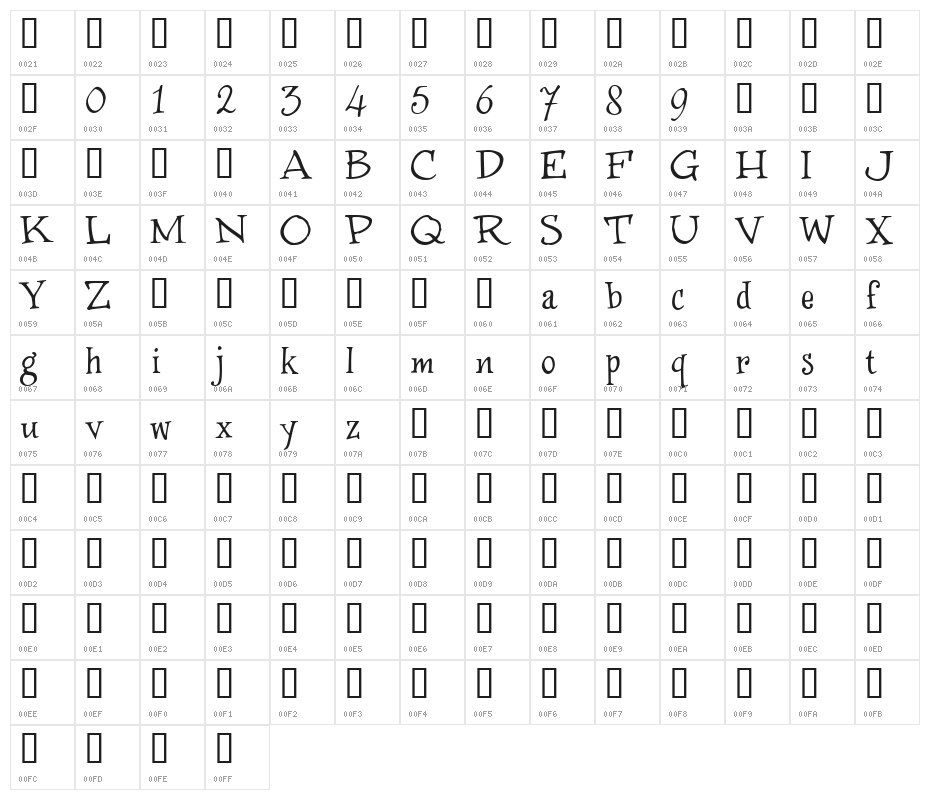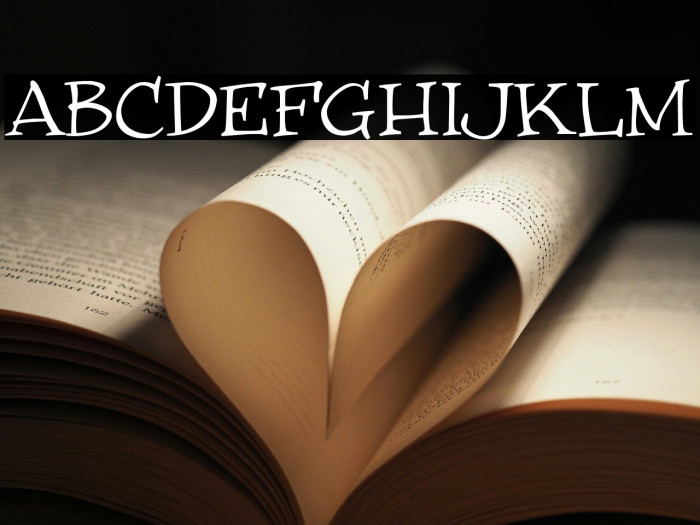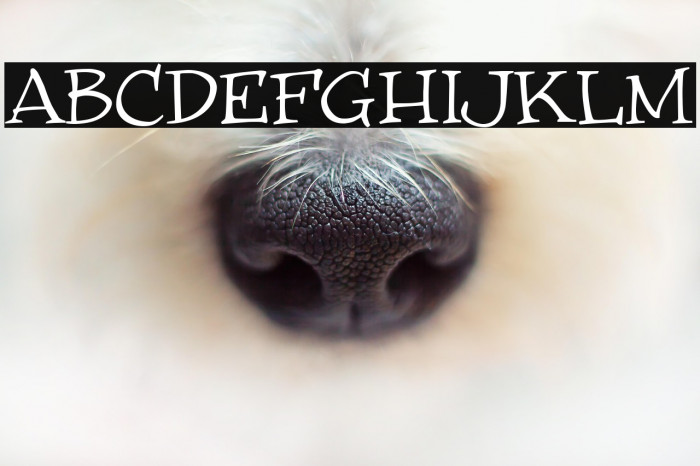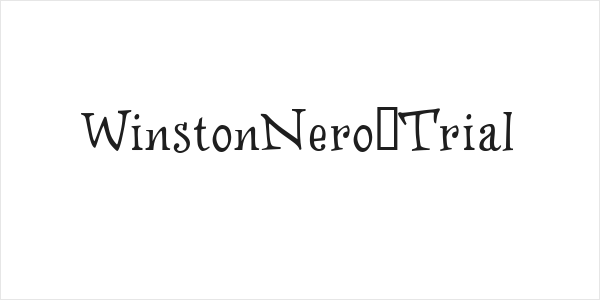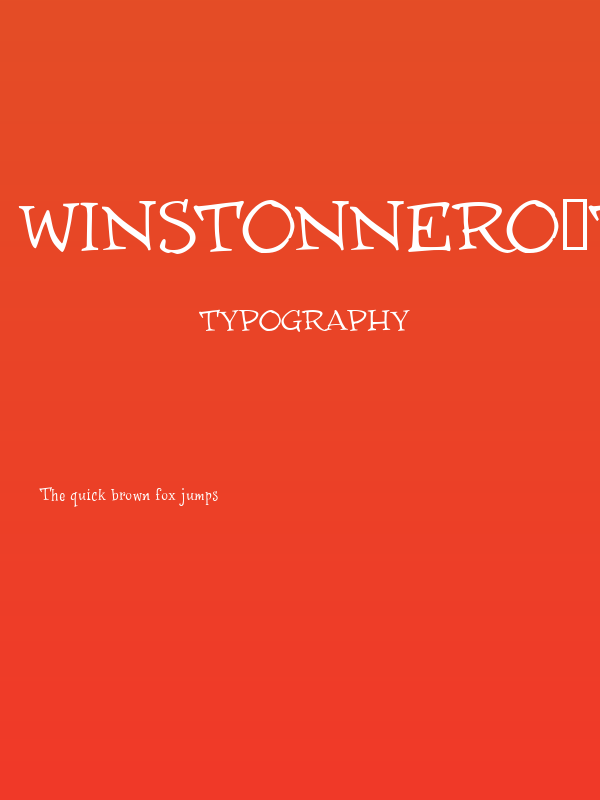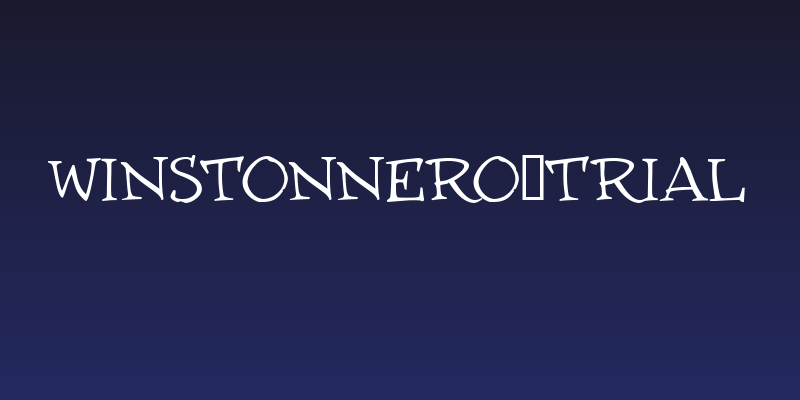
WinstonNero_Trial Font
WinstonNero_Trial Description
This font exhibits a playful and whimsical style, characterized by its uneven strokes and slightly irregular letterforms. The uppercase letters are bold and dynamic, with a hand-drawn quality that adds a touch of informality. The lowercase letters maintain this playful aesthetic, featuring unique curves and angles that give the font a lively personality. The numbers are consistent with the overall style, offering a cohesive look across all characters. The special characters are designed to match the font's quirky nature, making it suitable for creative and informal projects.
| Proposed Projects | Ideal for children's books, greeting cards, playful branding, and creative posters. |